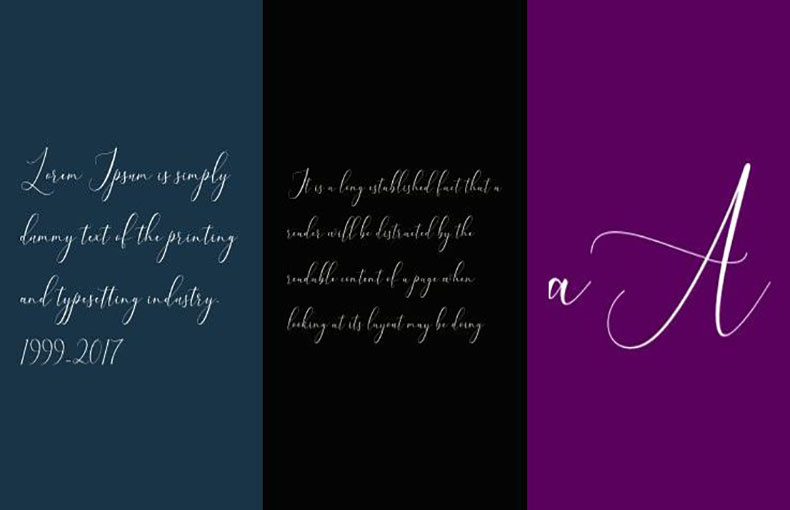
Bellisa Font is a modern script calligraphy typeface that has been designed by Amarlettering-Takiy. It comes in a single style that is perfect for creating elegant and sophisticated designs.
This single style contains 194 glyphs and 12 binary stored kerning pairs. And this font supports 34 different languages.
It is a cursive script font with bold contrasting strokes, a playful character, and a bit of binder and alternatives.
Bellisa typeface is great for logo designs, social media, movie titles, book titles, short text even long text letters, and is great for your secondary text fonts with sans or serif.
The way the letters flow and look graceful adds a personal feeling to any design. So, it’s just right for making special projects like wedding invites, thank-you notes, and your own personalized stationery.
It works well for printing projects, titles, layouts, fabric designs, headings, shop names, movies, TV shows, banners, emblems, t-shirt designs, homeware designs, invitation cards, wedding cards, birthday invitations, quotes, and calligraphy artwork. It is also a good choice for posters, magazines, books, and logos.
In general, the Bellisa Font is an excellent choice for anyone wishing to add a dash of class and beauty to their design efforts.
A typeface or writing style with a distinctive appearance is called Bellisa Font. It is used to produce text that has a distinctive and appealing appearance.
Bellisa Font can be used in a variety of contexts, including documents, websites, posters, and more. It gives your text a unique touch.